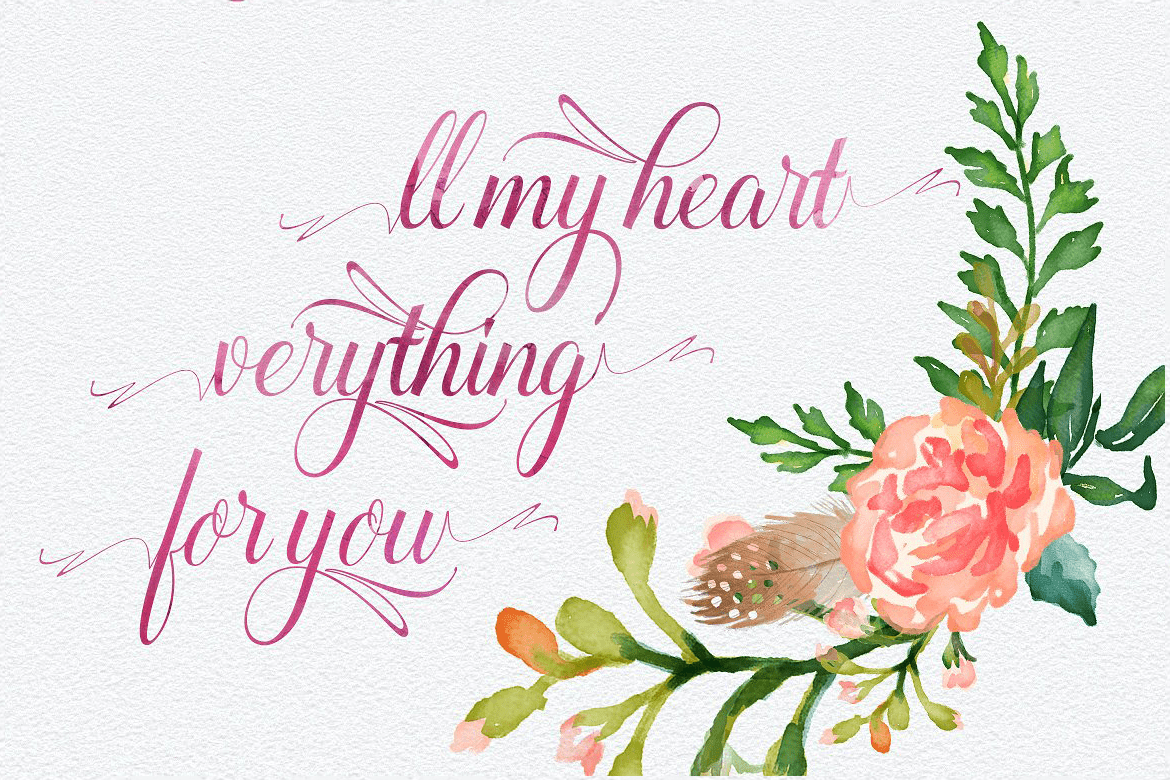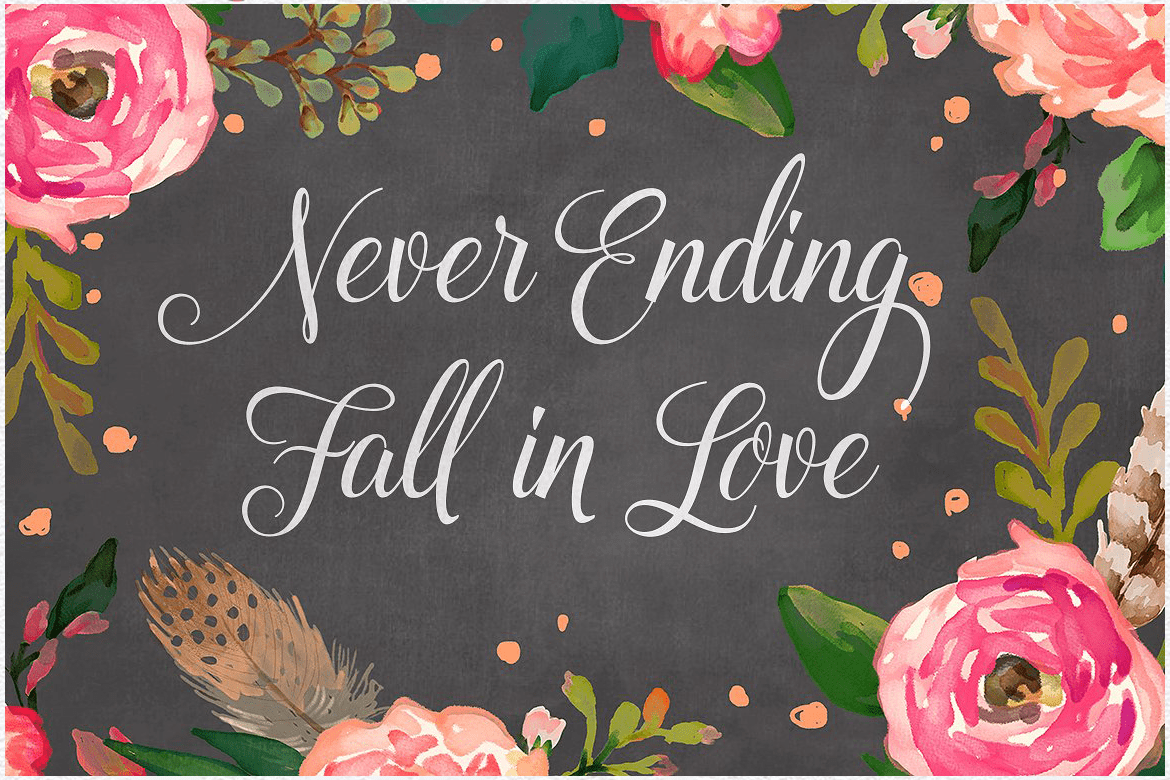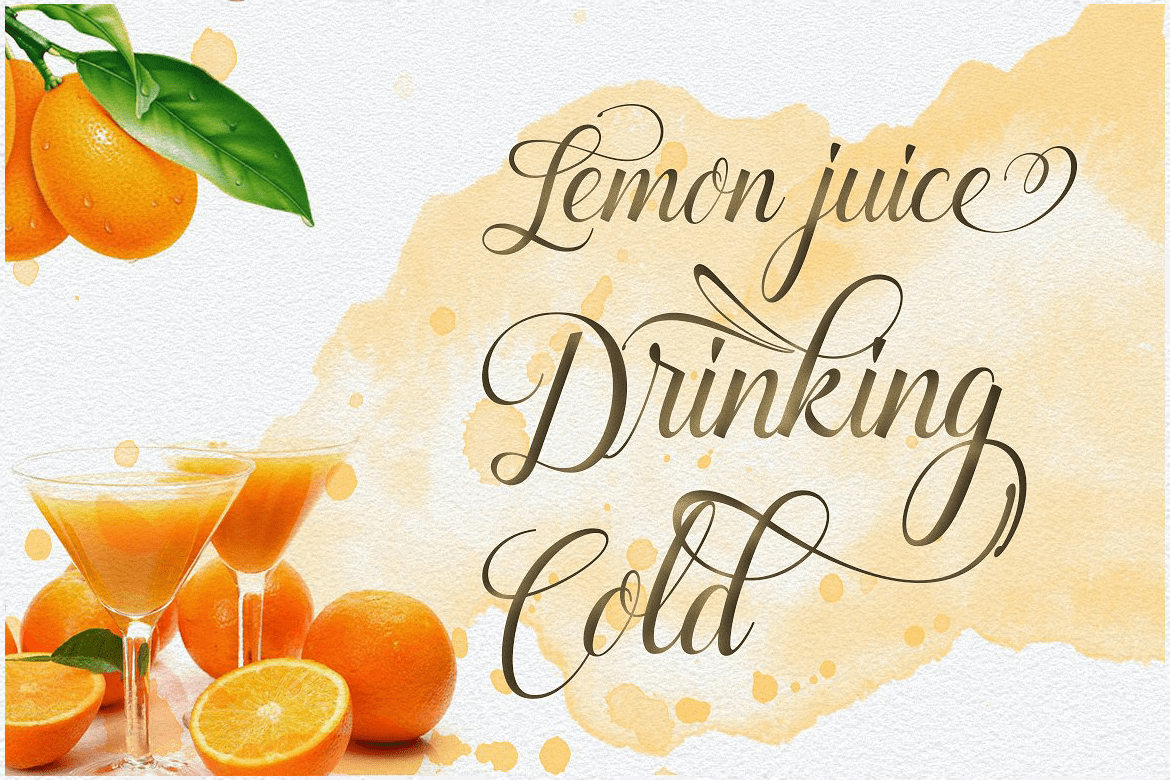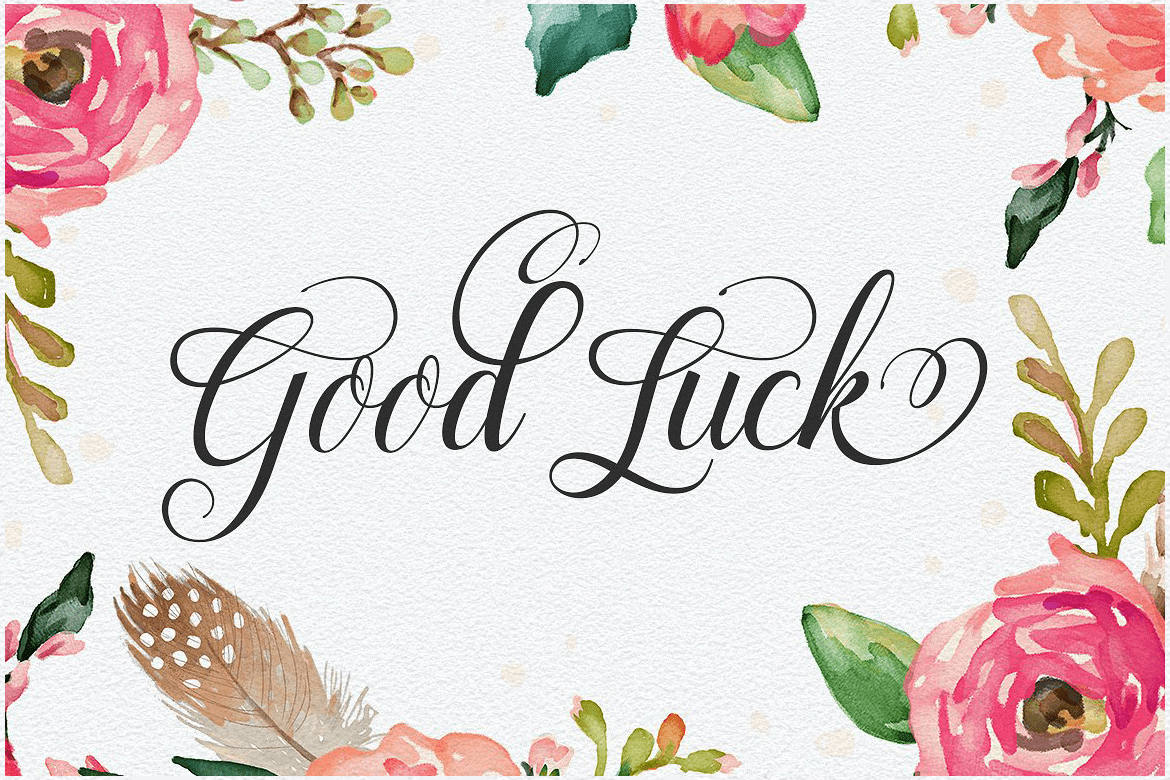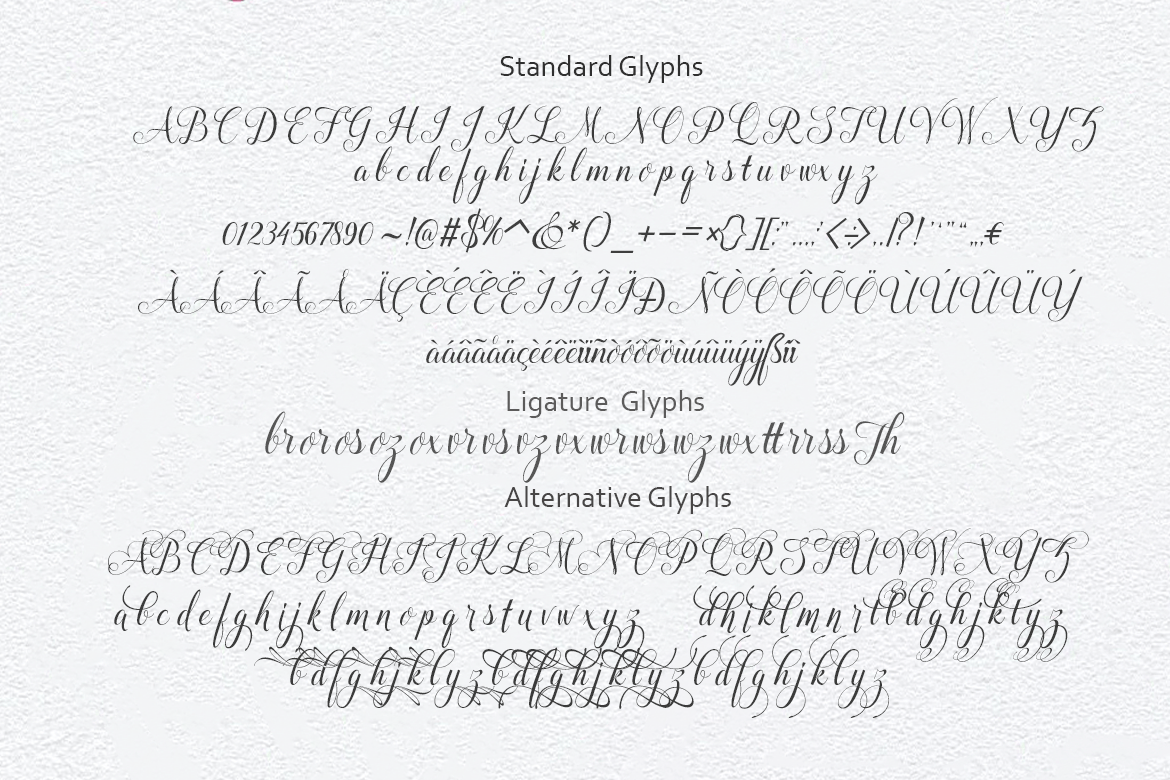
Maphylla
Maplylla is a font scrip, so, font script that is beautiful and unique, it is a model of modern calligraphy typefaces, in combination with a calligraphy writing style. total 378 glyph.
The Features of this fonts is;
- Contextual Alternates
- Standart ligatures
- Discretionary ligatures
- Stylistic Alternates
- Stylistic sets
- initial form
- Ornament 2 glyph using initial form and initial form
Languages supported: Breton, Catalan, Czech, Danish, Estonian,French, German, Hungarian, Icelandic, Italian, Romanian, Scottish Gaelic, Slovak, Latvian, Lithuanian, Norwegian, English, Finnish, Polish, Portuguese, Slovenian, Spanish, Swedish, Turkish, Welsh. Basically, all european languages that are based on latin alphabet